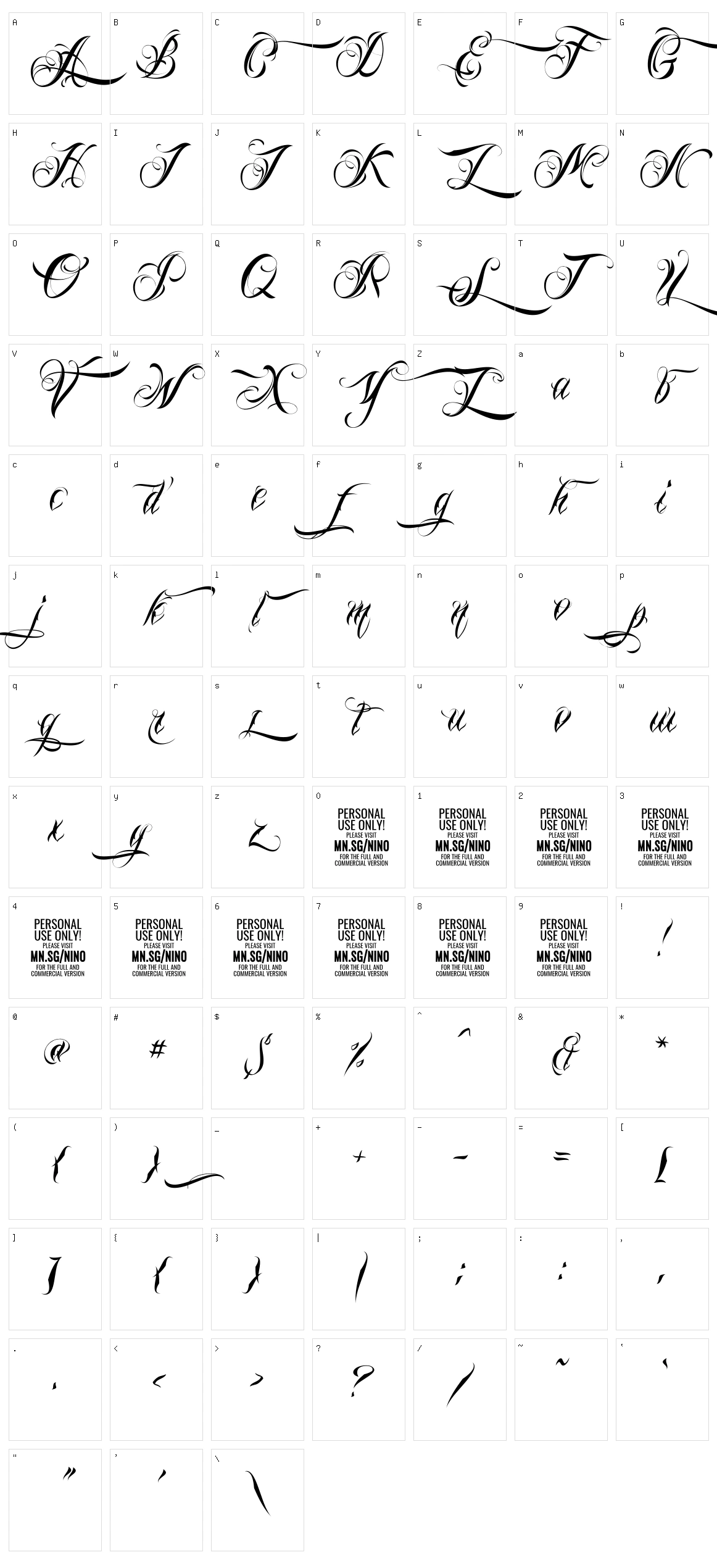
Nino Script is a decorative tattoo typeface.
It has a wild style and ornamental letters that gives a customized appearance to every word.
Use underscore to create a swash. Example: Wild_